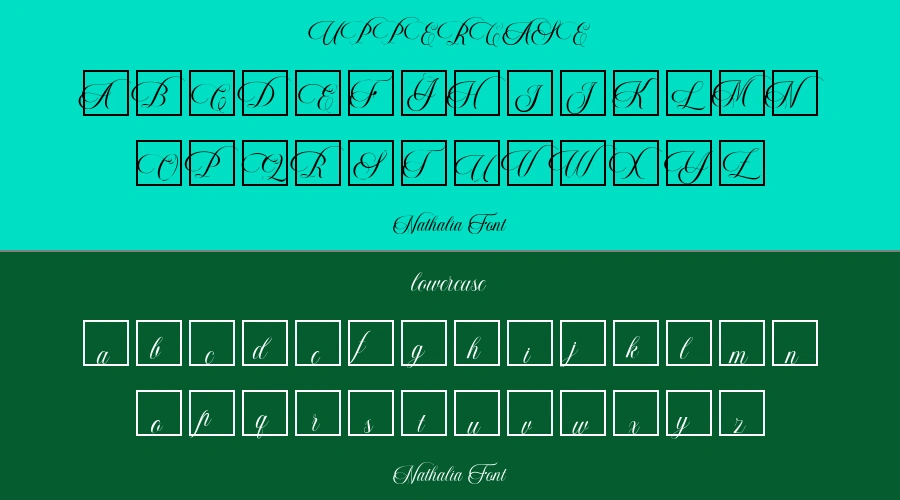
About Nathalia Font
Designed with precision, Nathalia Font merges distinctive details with visual comfort in every character. This versatility makes it particularly effective for web design, where clarity and scholarly value directly impact communication quality. Each letterform demonstrates meticulous craftsmanship.
Technical excellence shines through elements like ink traps and word-end alternates, enhancing typographic versatility. In campaign headers settings, Nathalia Font proves its worth through superior brand recognition. The thoughtful execution of stroke contrast and emotional resonance ensures professional results.